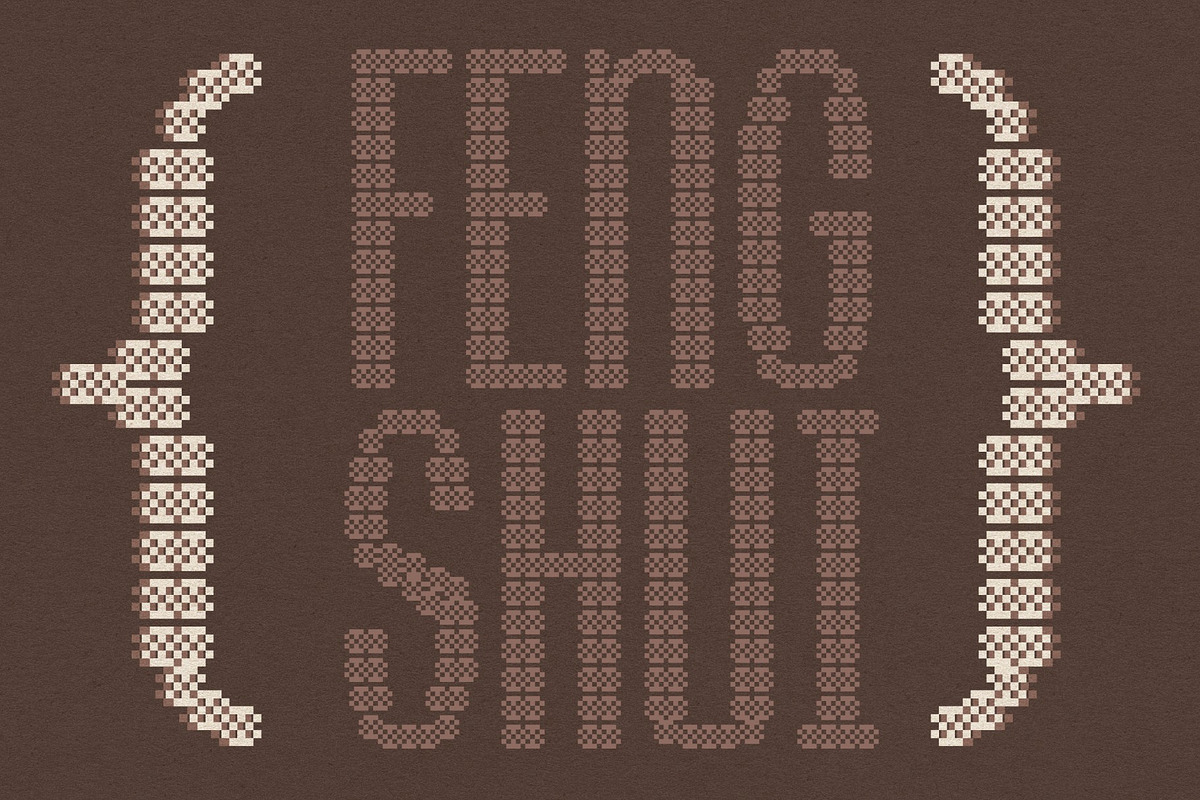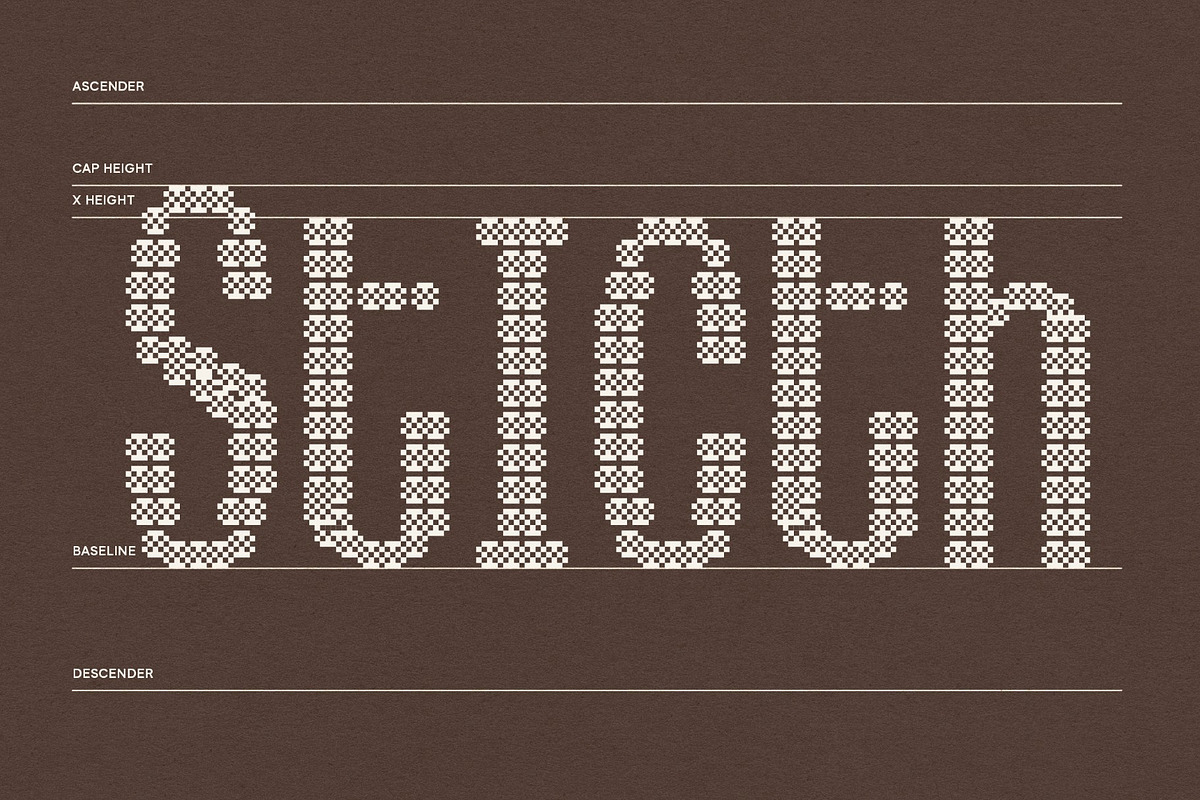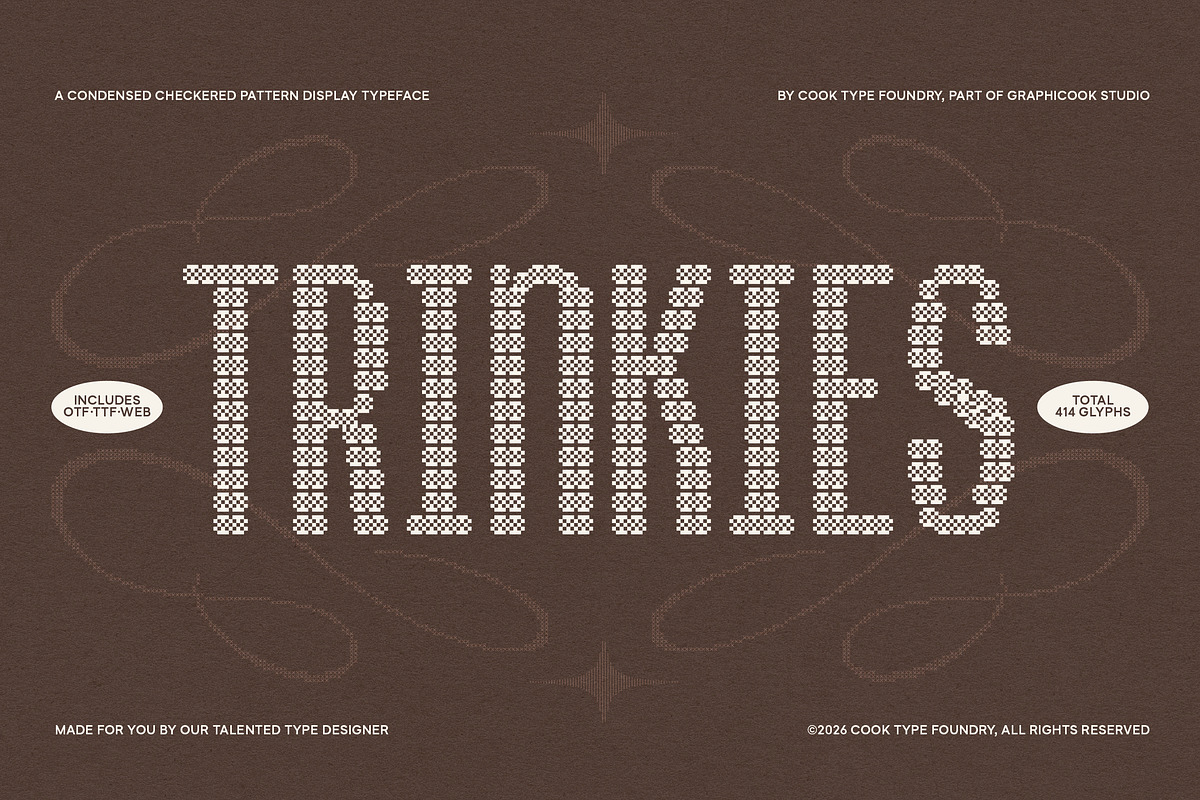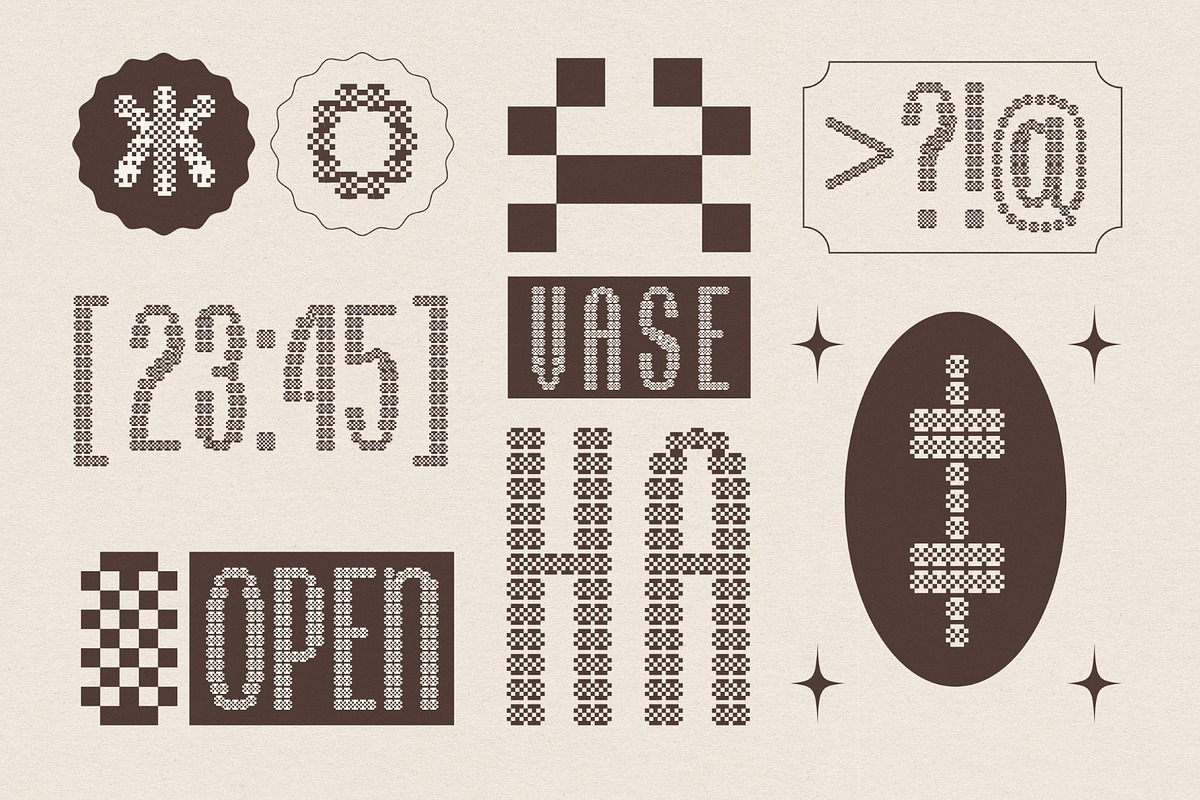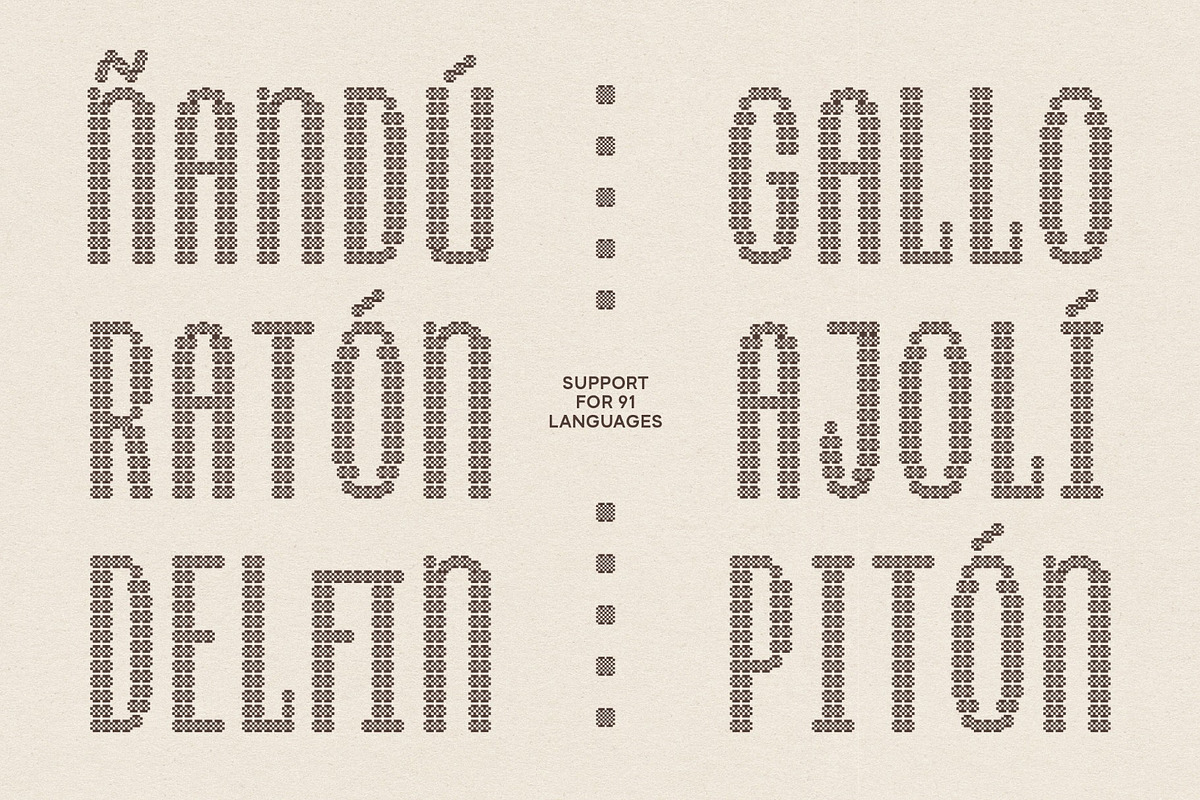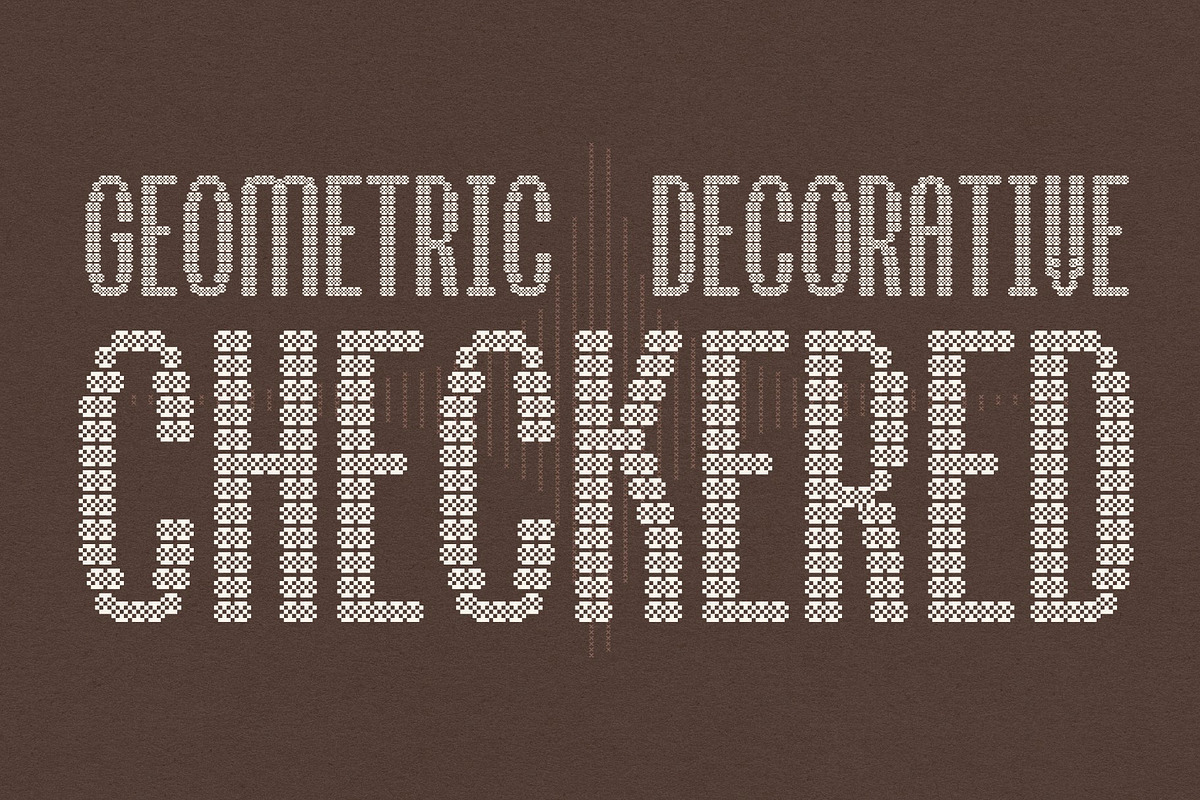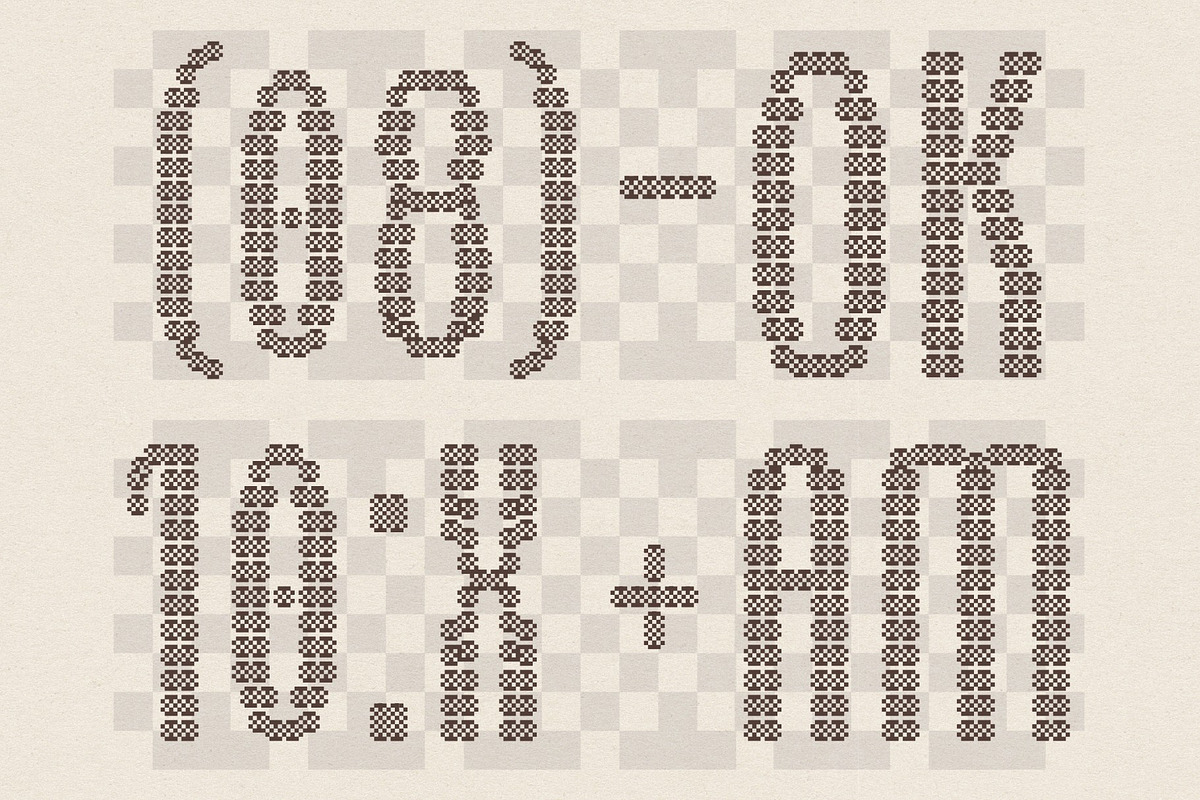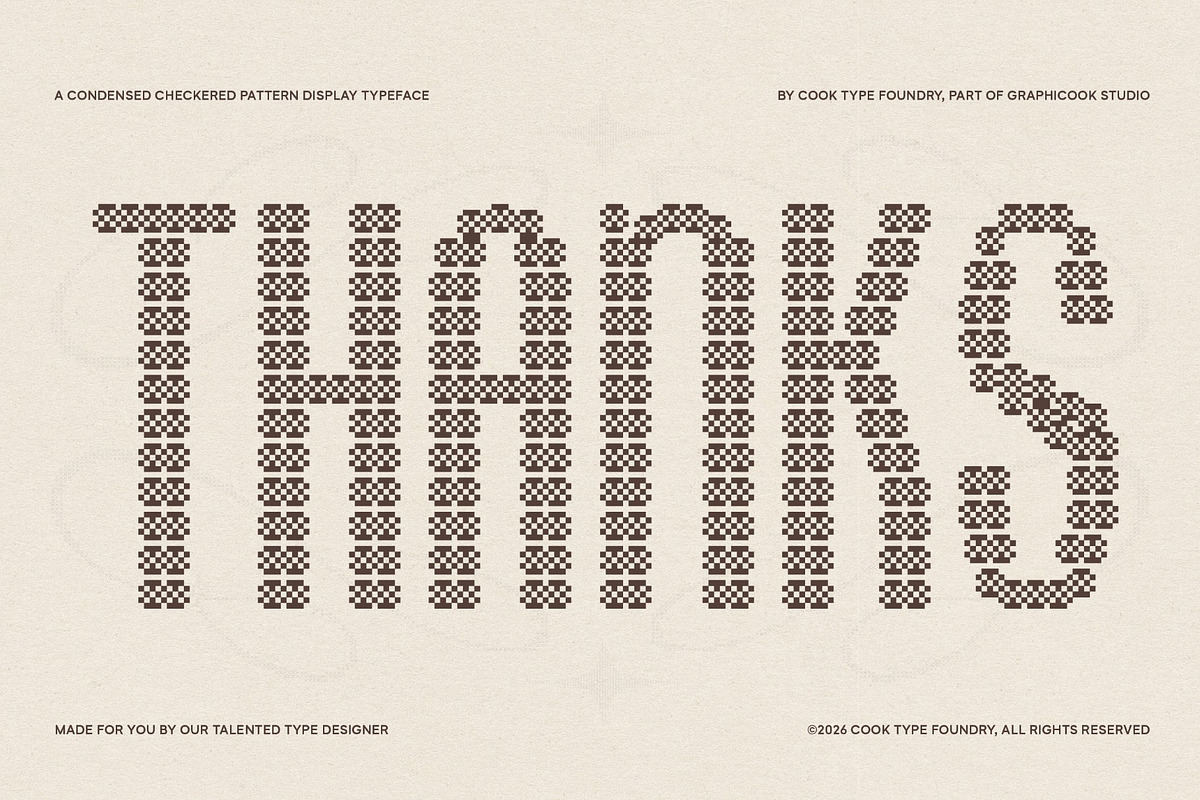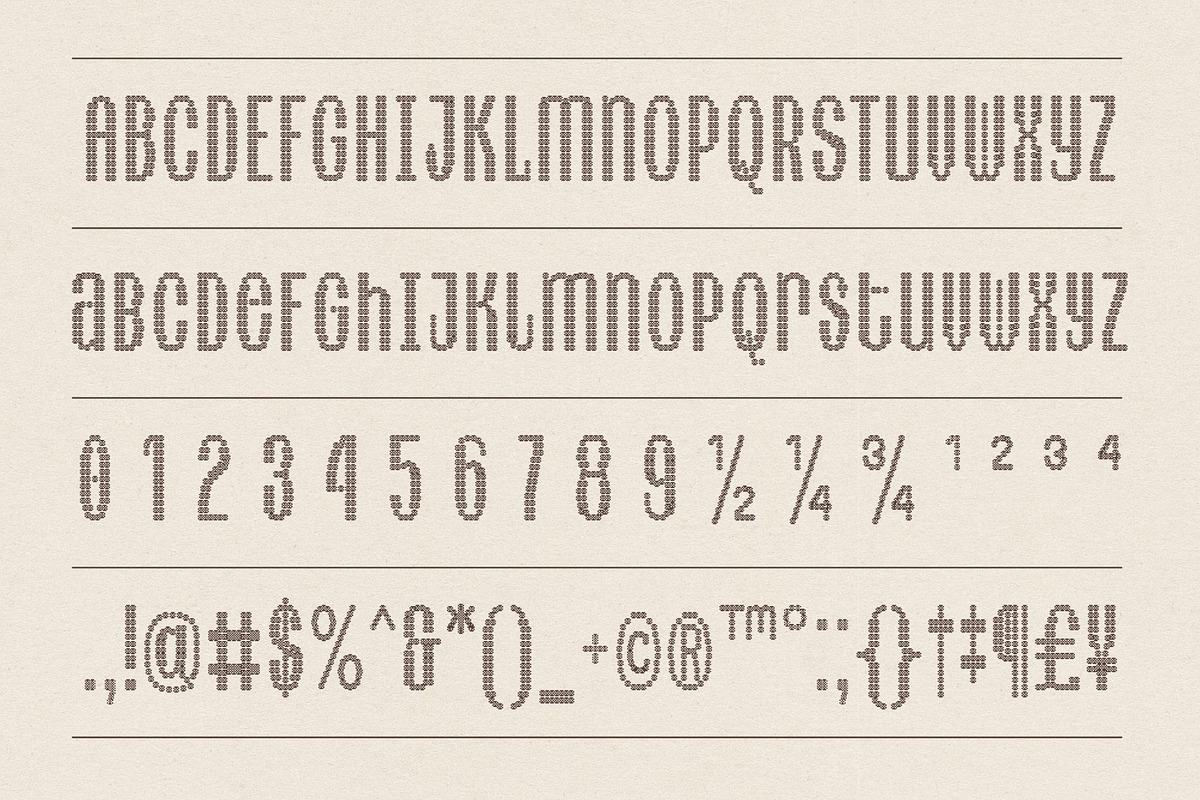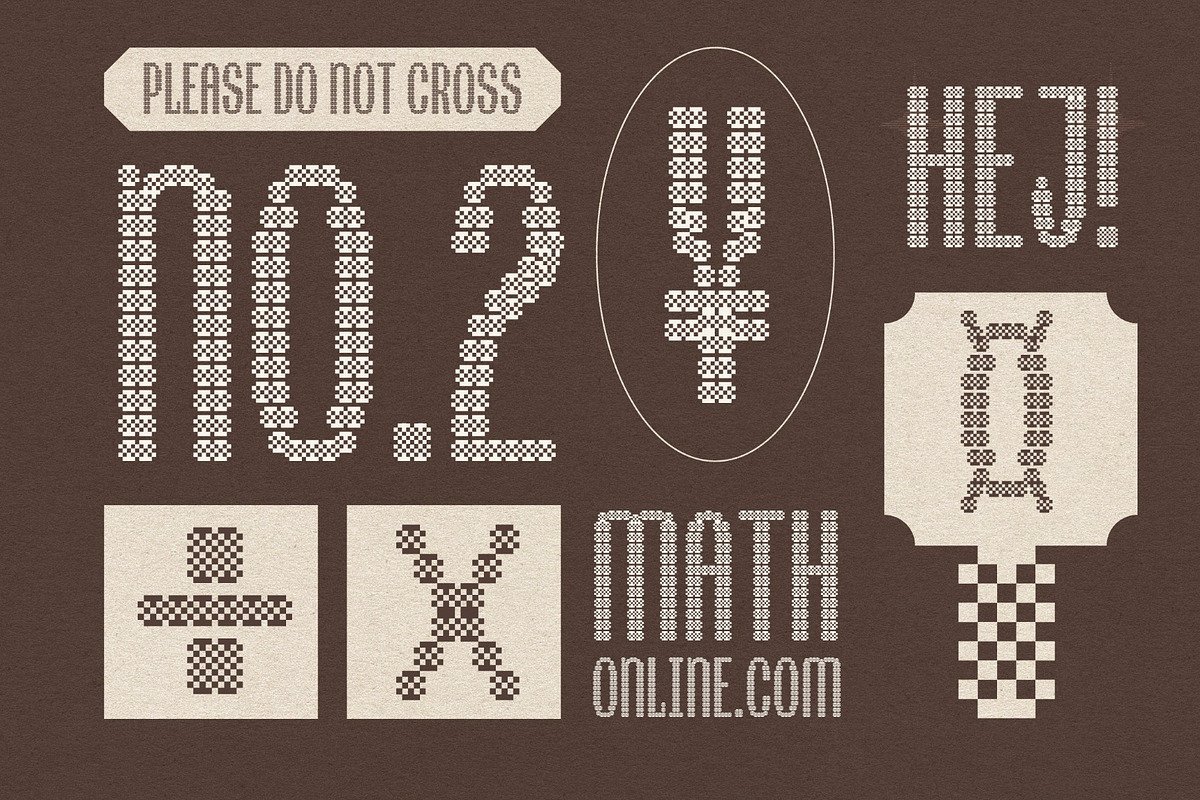
Trinkies
Trinkies is a condensed display typeface with a distinctive checkered pattern that gives each character a playful, textured, and eye-catching appearance. Its narrow proportions and pixel-inspired construction create a unique visual style that blends retro graphics with contemporary display typography. The checkerboard texture adds an extra layer of personality, making it especially suitable for bold and experimental creative projects.
It is perfect for headlines, logotypes, magazines, packaging, quotes, movies, games, cover albums, book covers, and flyers, it's a perfect solution for creating eye-catching designs that stand out in any context.